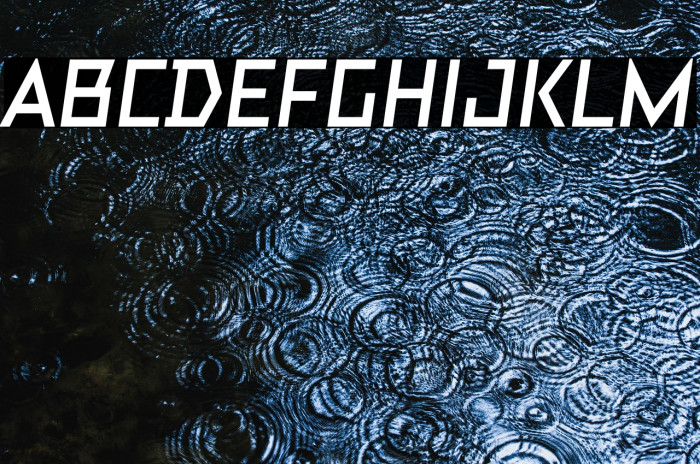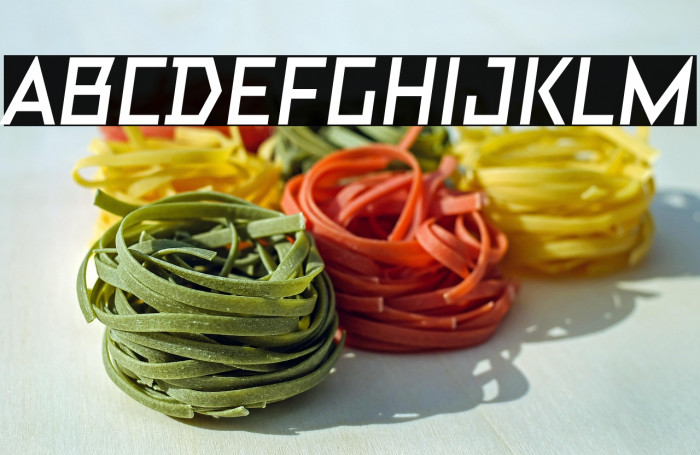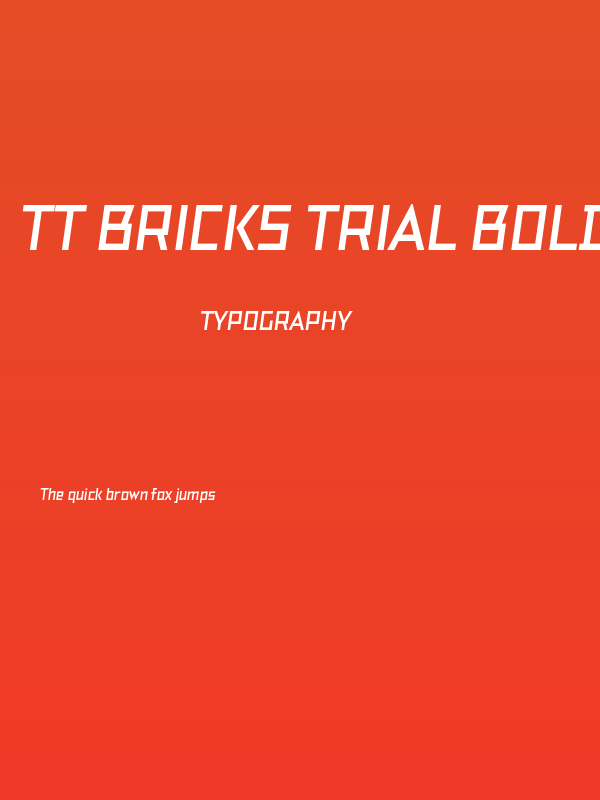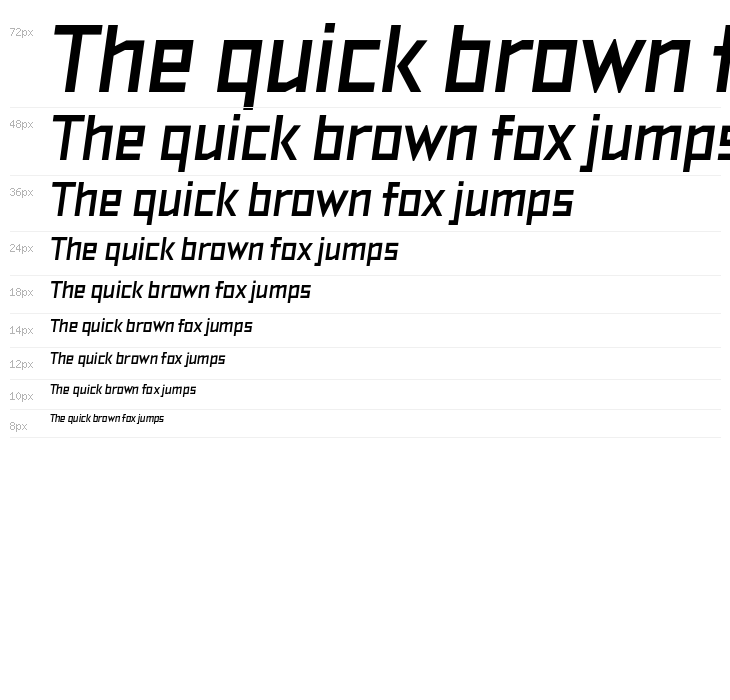
TT Bricks Trial Bold Italic Font
TT Bricks Trial Bold Italic Description
This font exhibits a bold and italicized style with a modern and geometric appearance. The characters are angular and slightly condensed, giving a sense of structure and precision. The uppercase letters are uniform in height, while the lowercase letters maintain a consistent baseline. Numbers are clear and distinct, matching the overall angular theme. Special characters are well-integrated, maintaining the font's cohesive look. The italic slant adds a dynamic feel, making it suitable for attention-grabbing designs.
| Proposed Projects | Ideal for branding, headlines, posters, and digital interfaces where a modern and structured look is desired. |